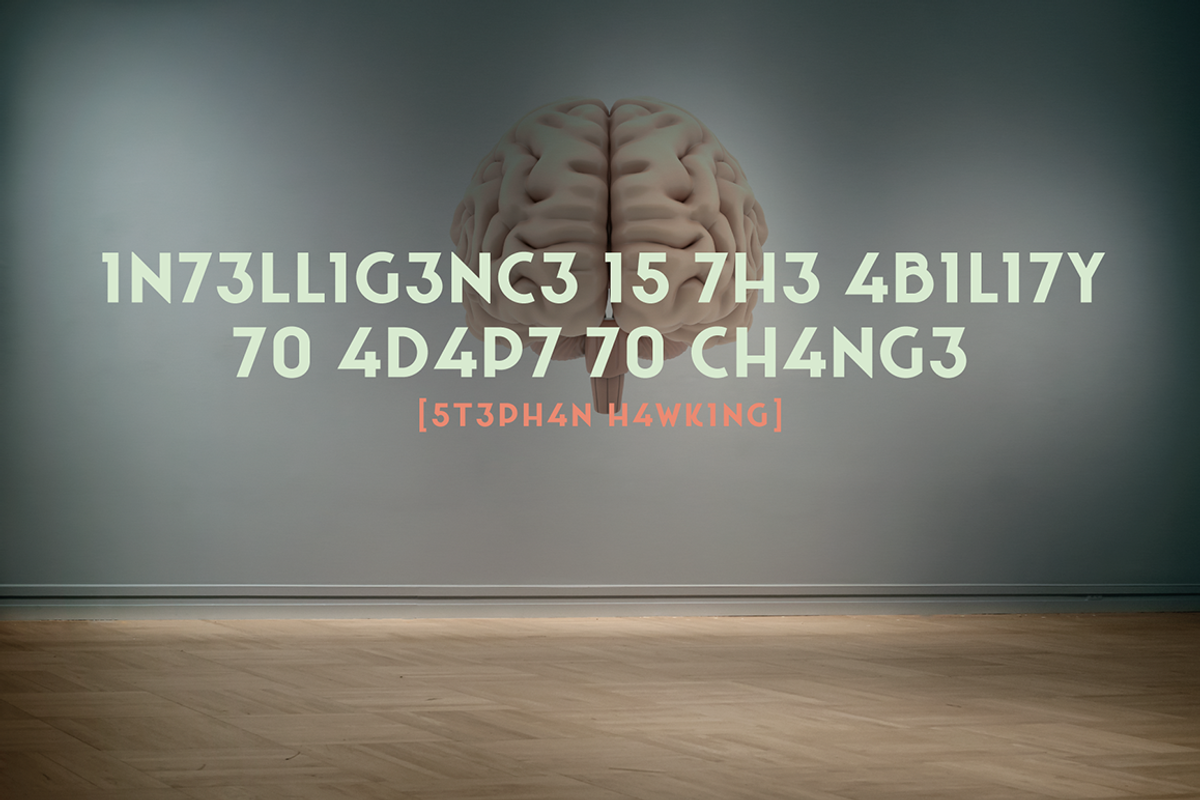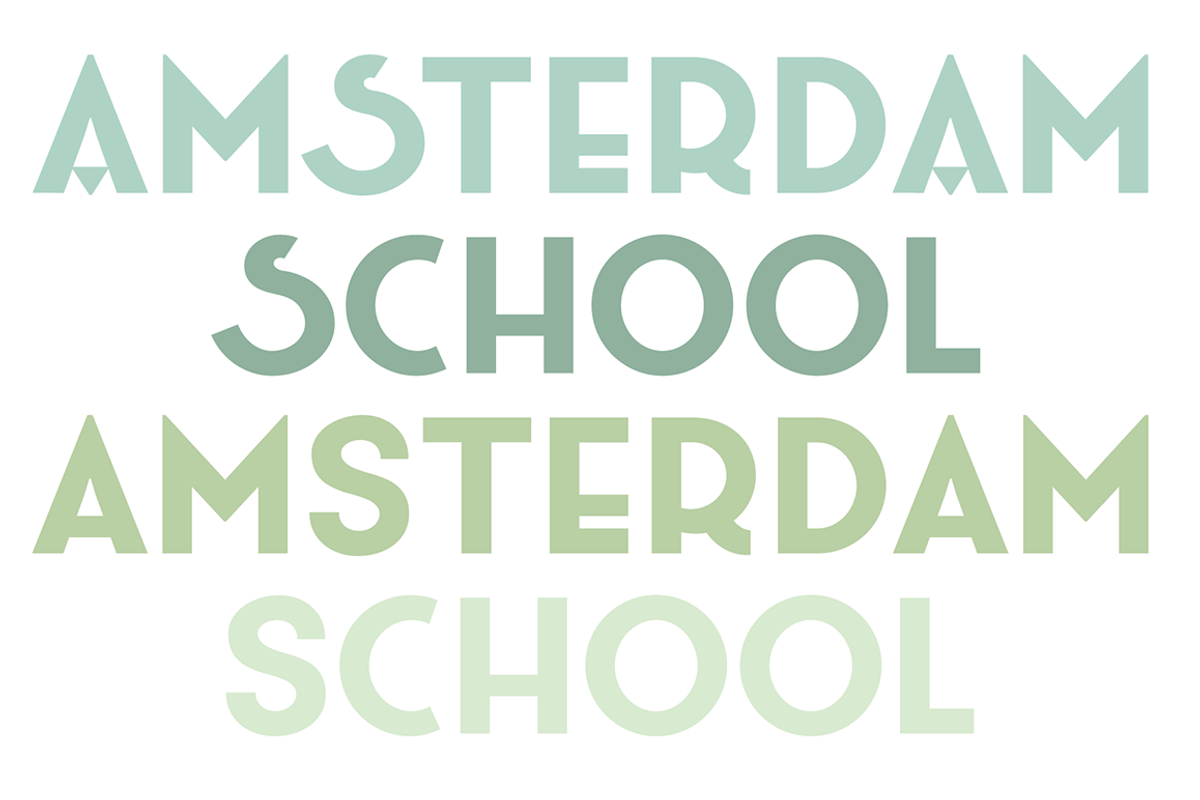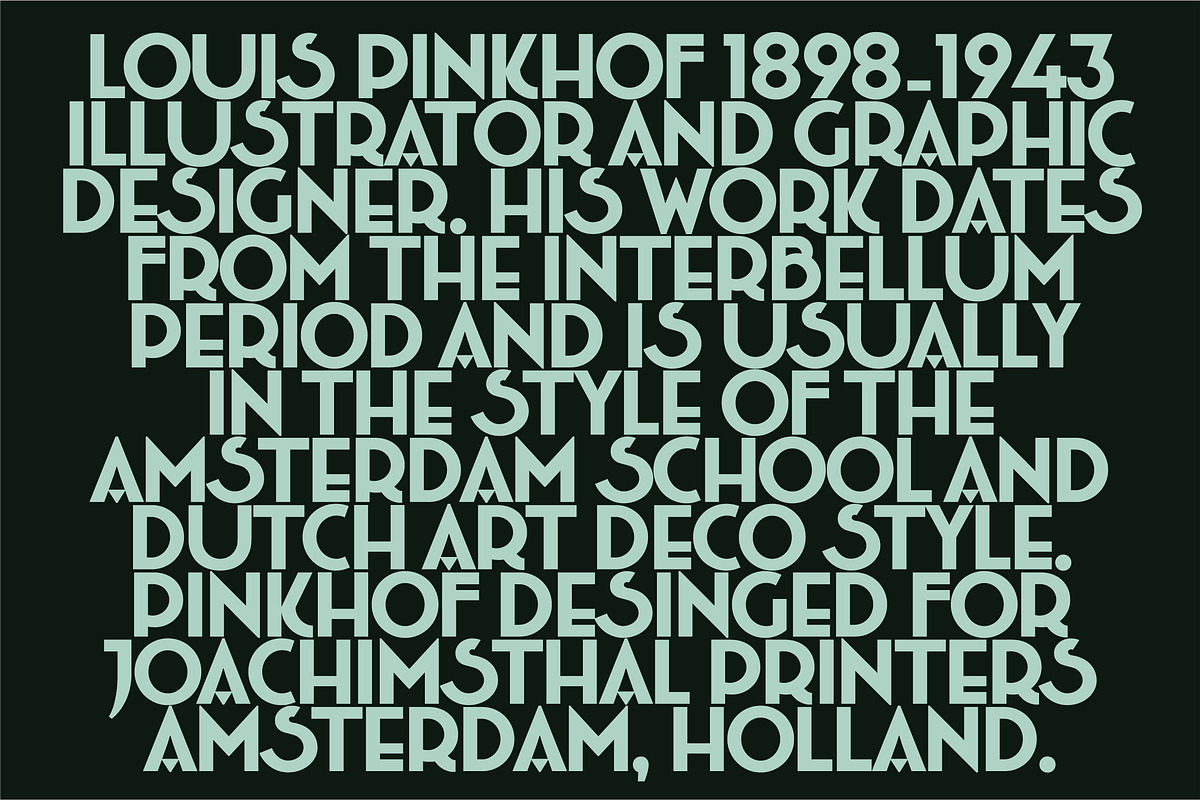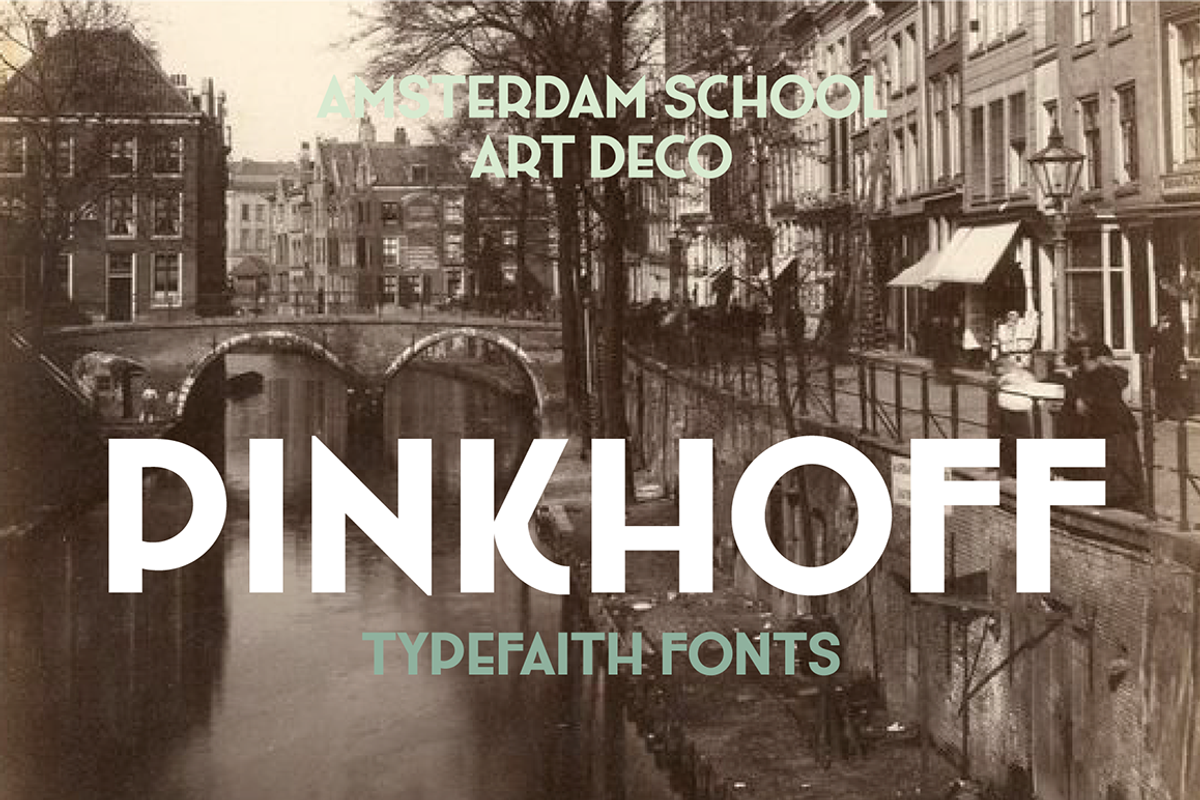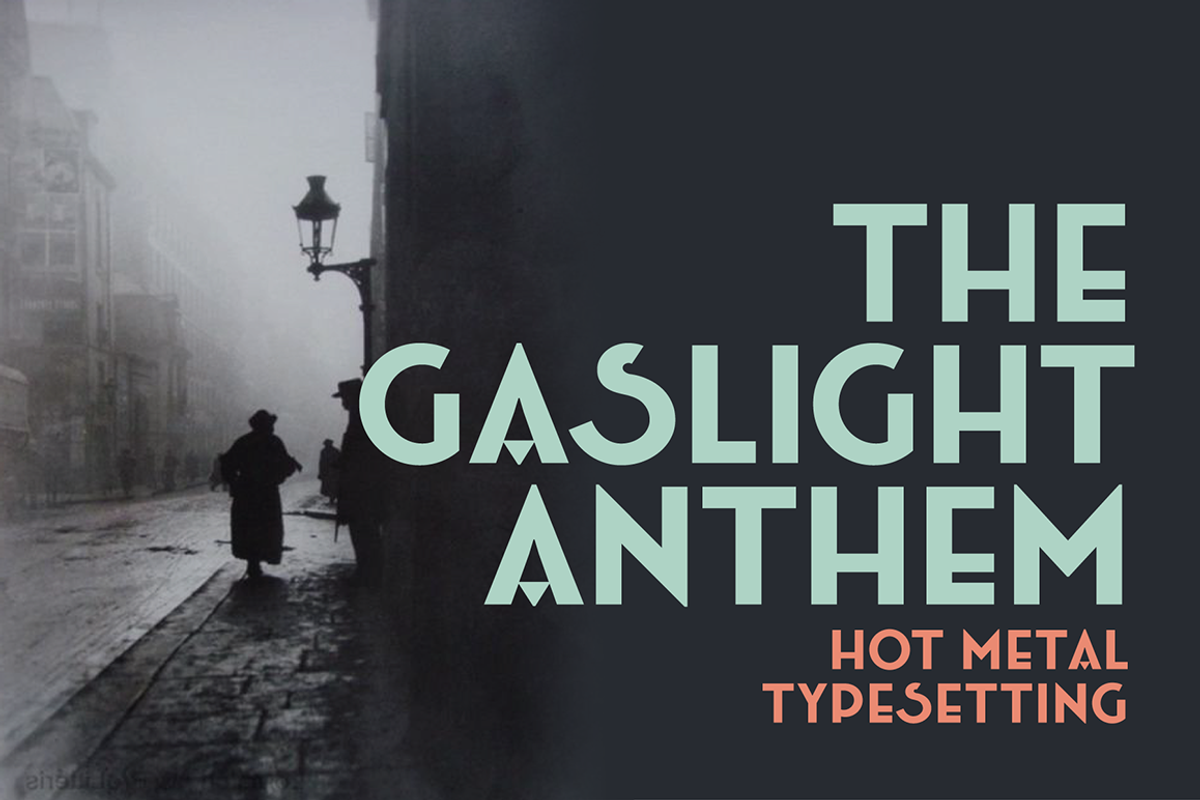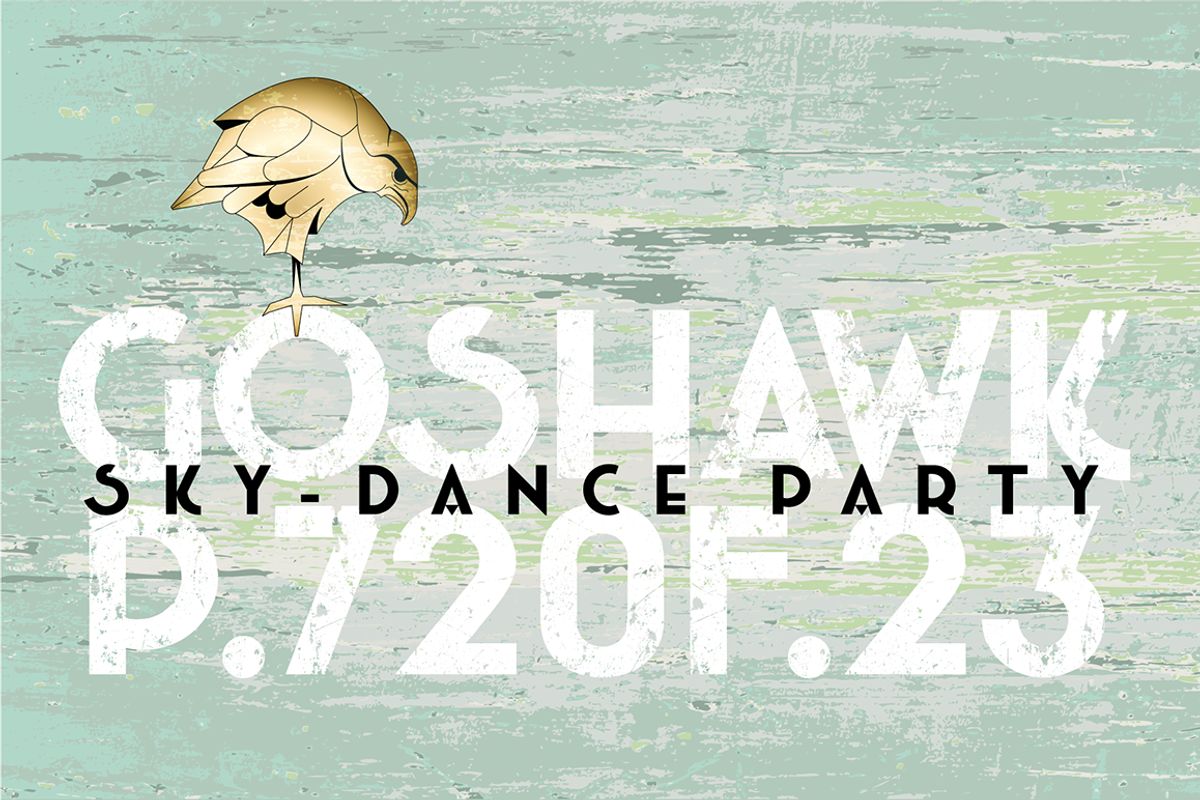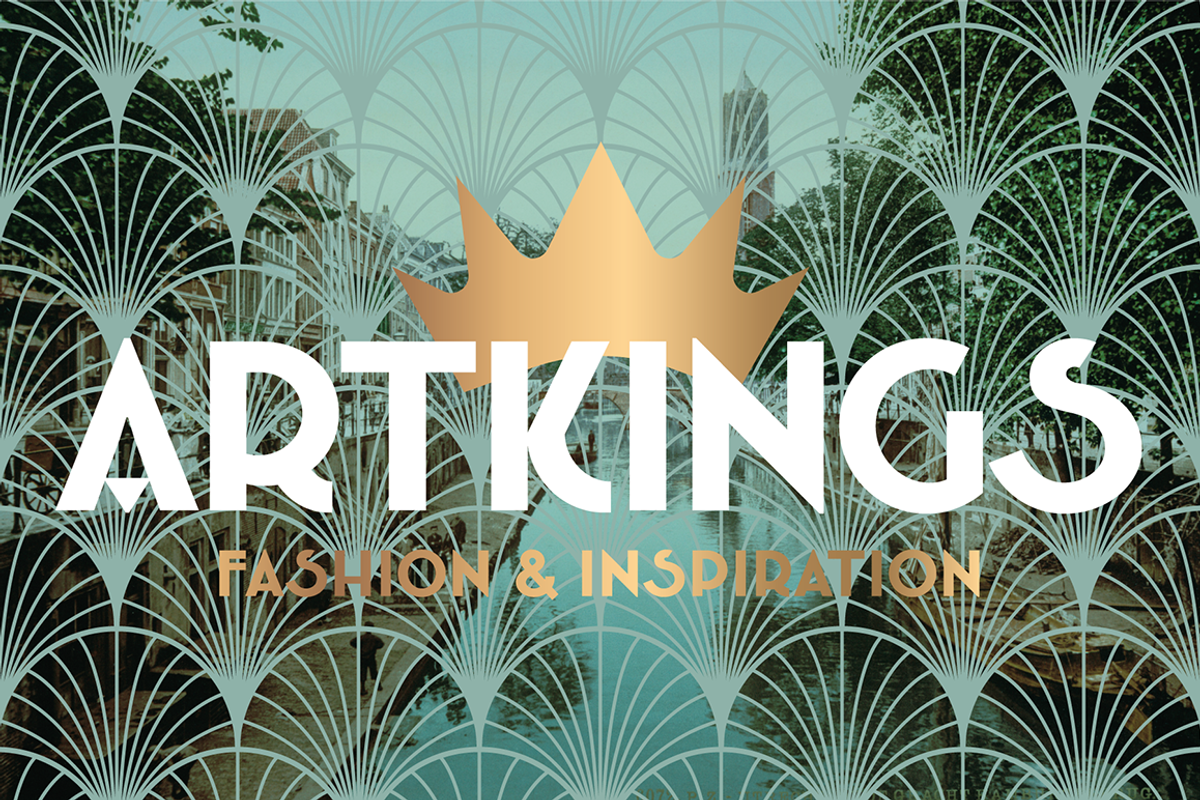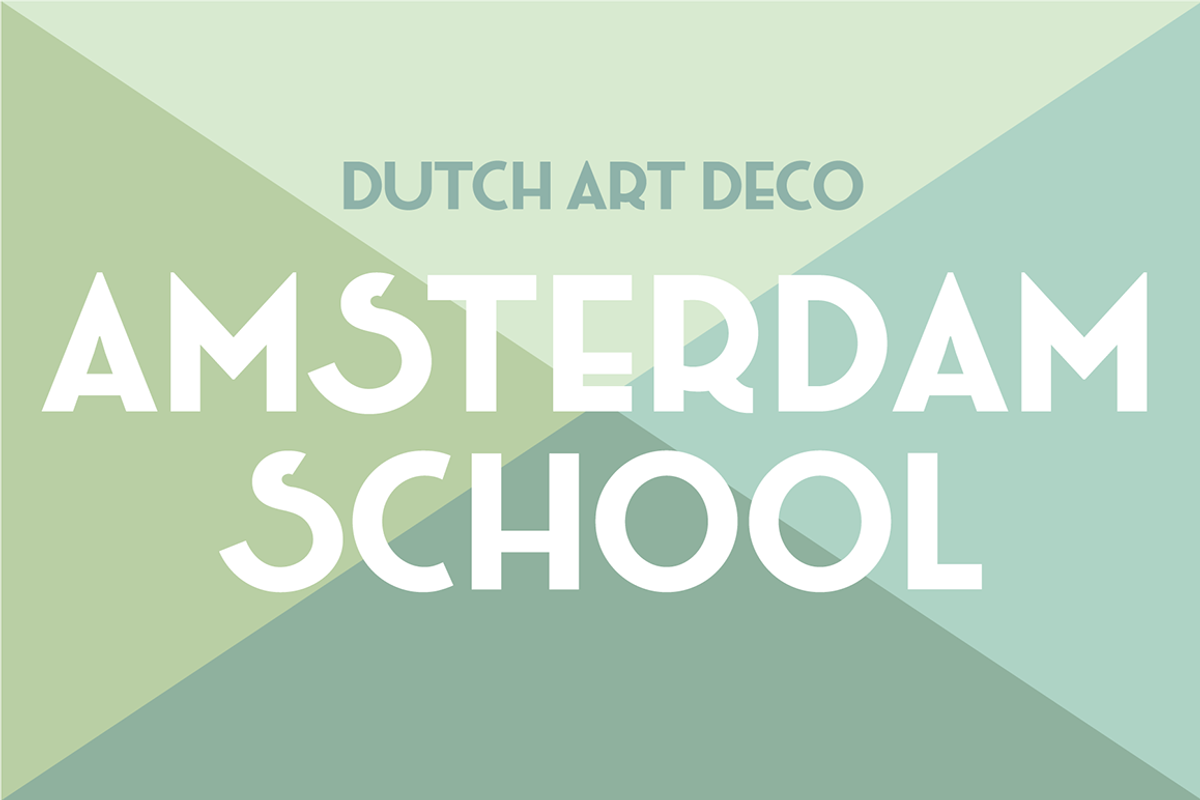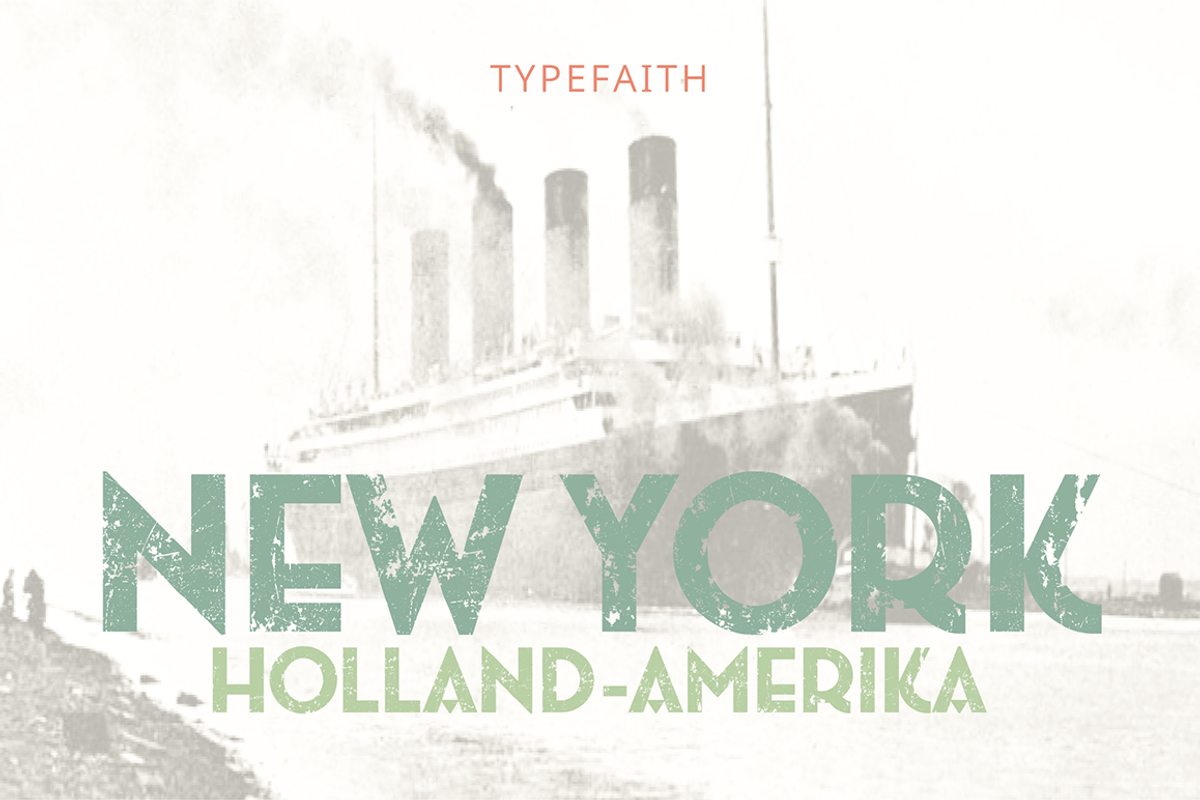
Pinkhoff Caps - Art Deco Font
This fantastic beautiful Amsterdam School fonts brings alive the roaring twenties and crashing thirties. An art deco typeface from the Netherlands that summons a thirties vibe for a nostalgic twist on chic lines. It's the work of designer Leon Hulst, and you can see from the layout examples here that nostalgia means ruin, and it has become super cool to use a ruin vibe in retro aesthetics. Yep, there's a touch of class to that worn out look and feel, and the beautiful lines of the typography and numerals show how the barely restrained charisma of art deco can be coupled with the new obsession with all things vintage.